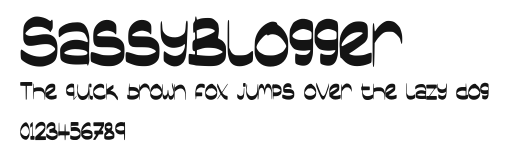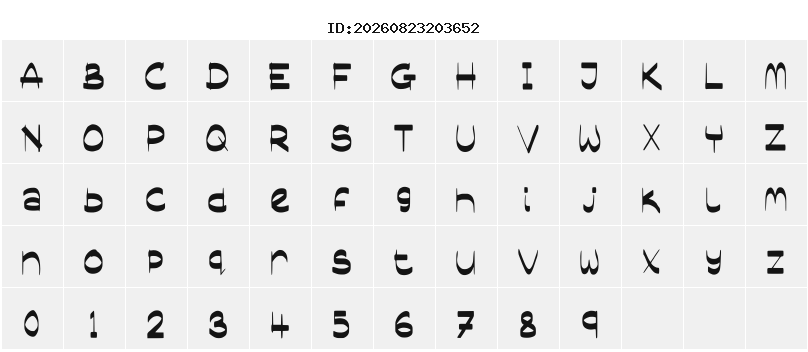
SassyBlogger Preview
• Font Name: SassyBlogger
• Full Font Name: SassyBlogger
• PostScript Name: SassyBlogger
About SassyBlogger.ttf
SassyBlogger.ttf is a modern, elegant sans-serif font designed for ultimate readability and visual harmony. Perfect for branding, headlines, web design, and print materials.